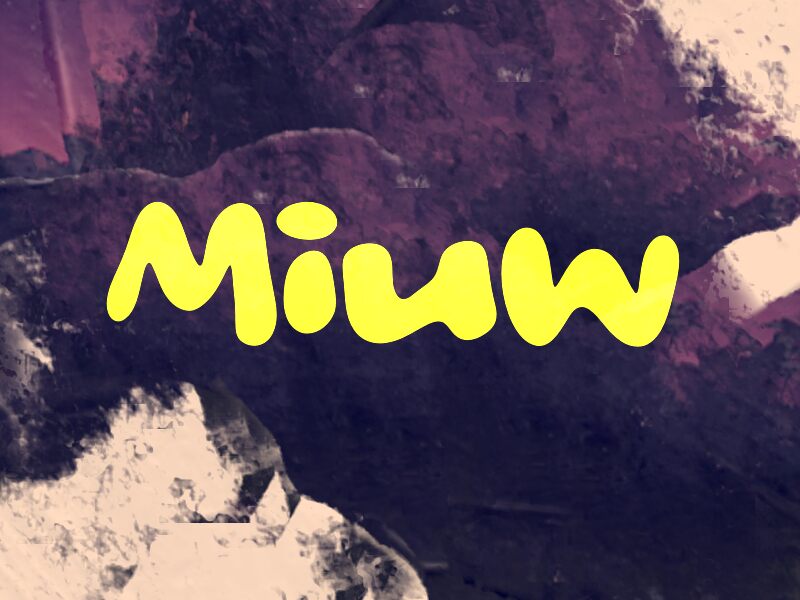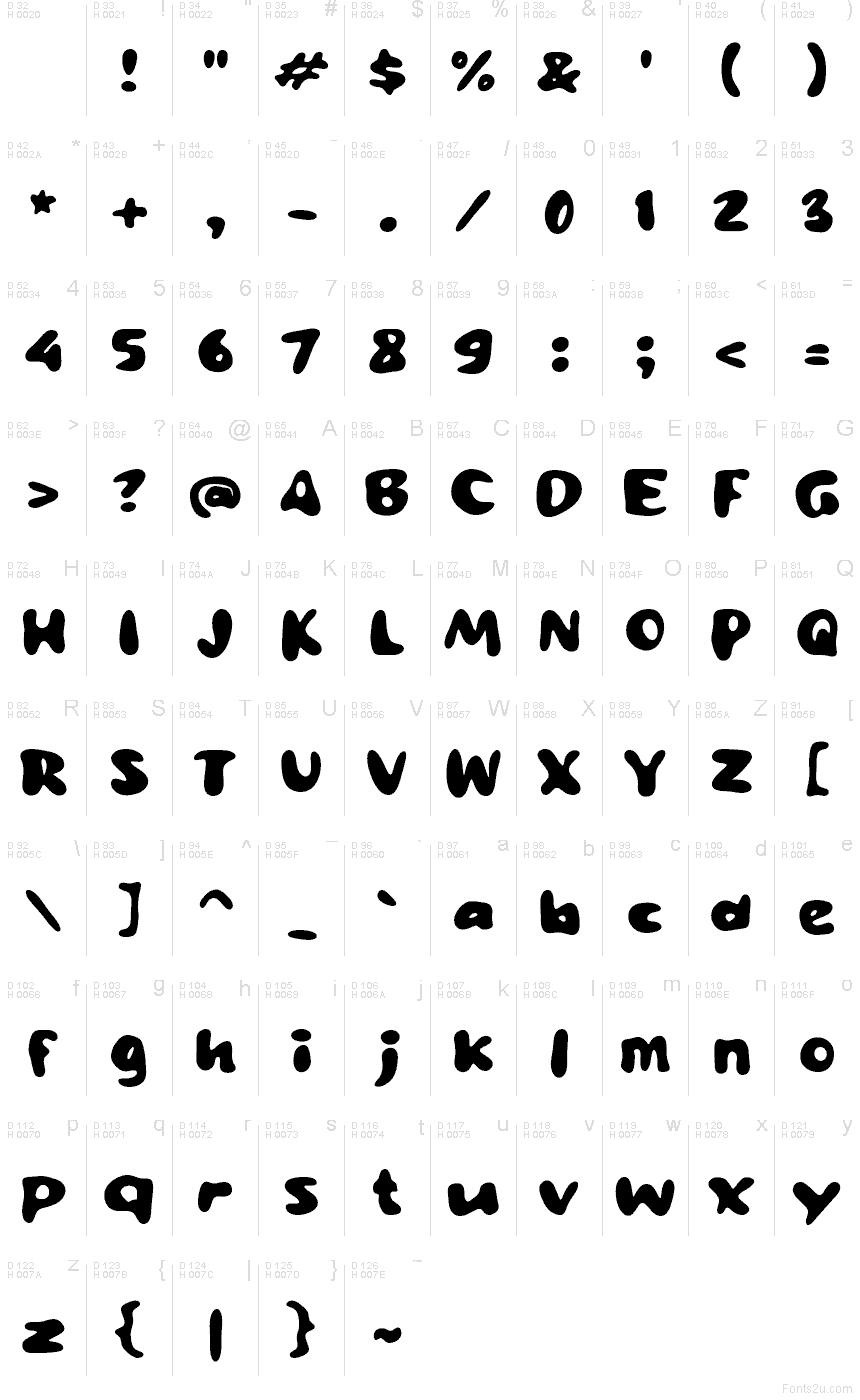
Miuw
Miuw font by wep is a free cartoon display typeface with a bold, inky bounce that feels like it was drawn with a fat marker on glossy paper. Each letter has a squishy, wobbly silhouette and soft edges that make the wordshapes look animated, as if they’re gently jiggling on the baseline. The compact spacing and chunky strokes create a strong, friendly presence even at small sizes, while staying legible and fun rather than chaotic.
Using Miuw, this free font shines on kids’ book covers, snack packaging, playful logos, YouTube thumbnails, stickers, and event posters where you want a big, goofy grin baked into the lettering. It works beautifully in all-caps for loud titles, or mixed case when you need a more conversational tone. Pair Miuw with a simple, clean sans-serif for body text to let its bubbly personality be the star.